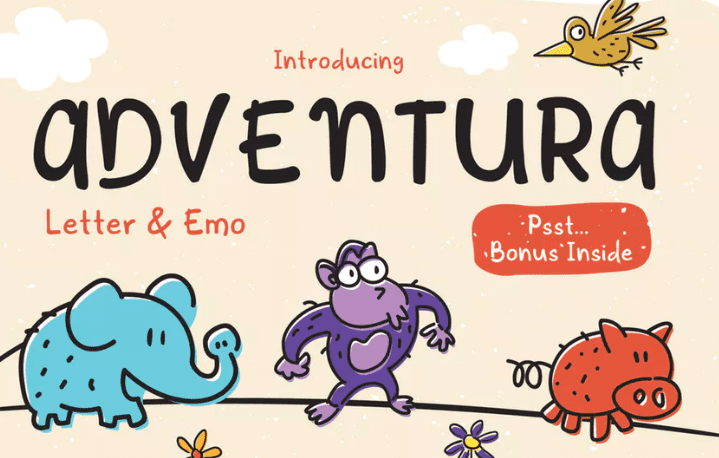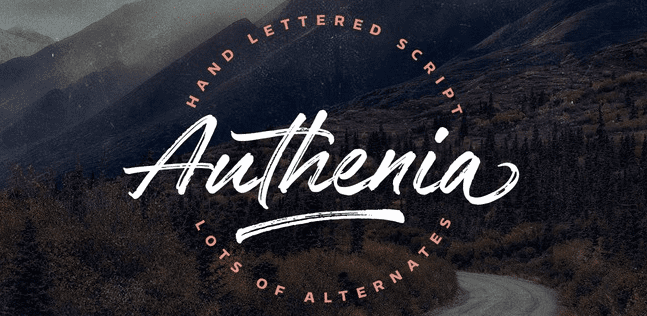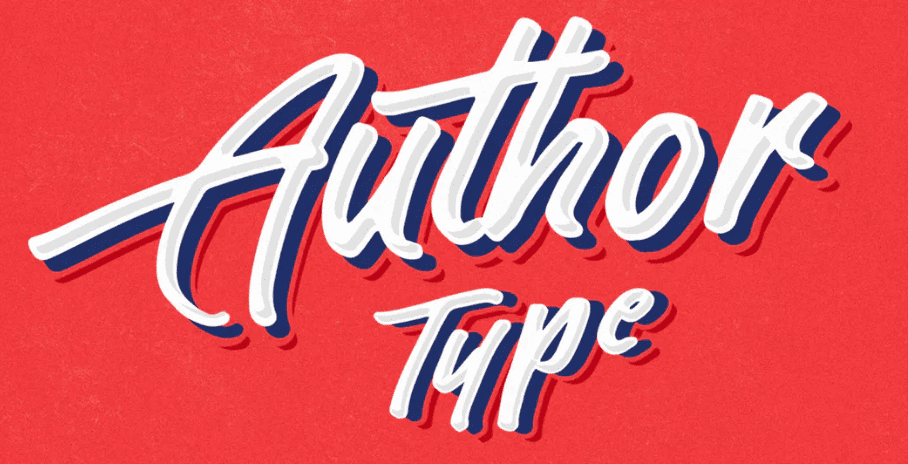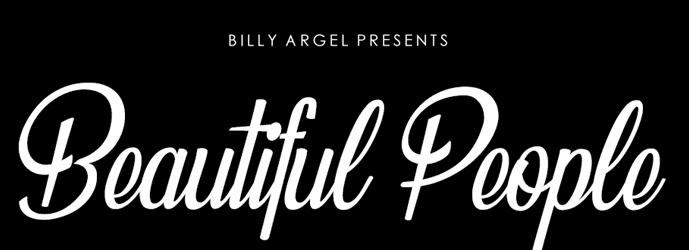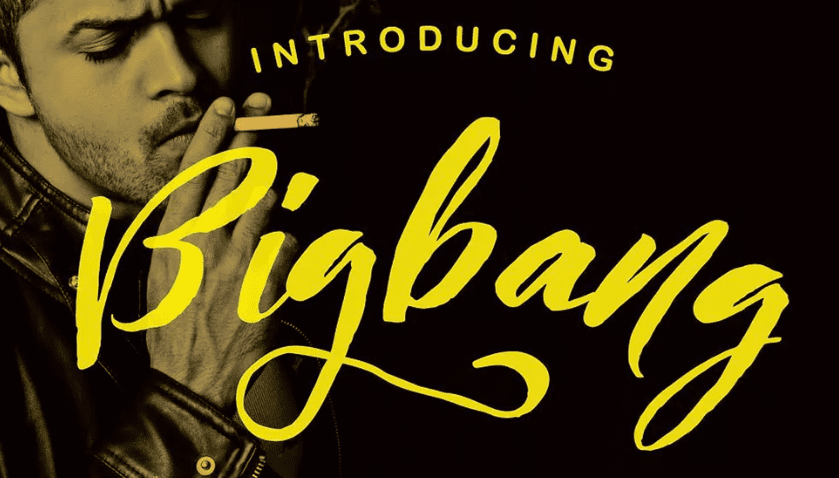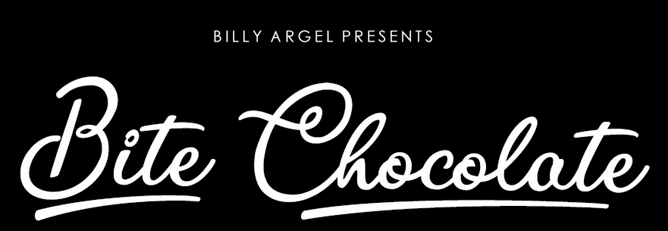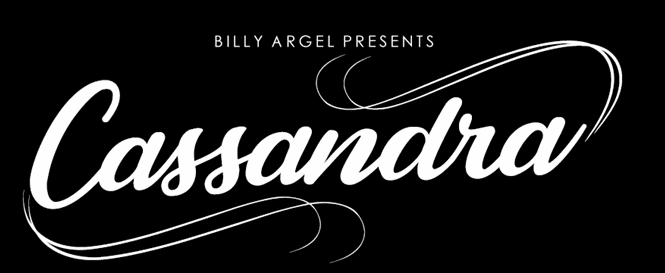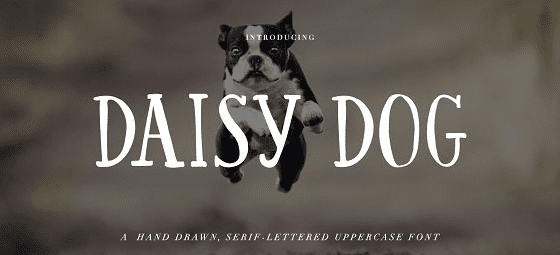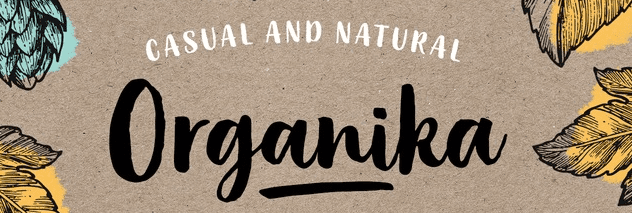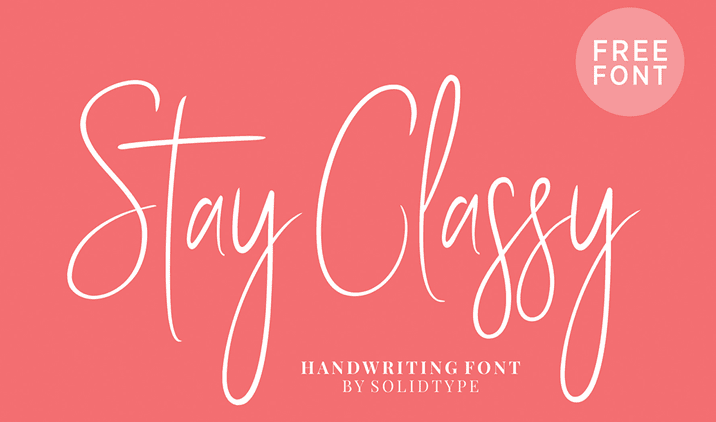
Given the prominence of tech, handwriting is arguably falling by the wayside. However, there’s still an appreciable charm to be had, and carefully-chosen lettering fonts can invoke a more ‘writerly’ feel, perfect for many different niches. The good news is that there are thousands of options to choose from online.
With this in mind, this post will look at 15 of the very best lettering fonts, and break down what makes them unique. We’ll also clearly note whether each font is free or premium.
15 Best Lettering Fonts for Achieving a Custom Creative Feel
Lettering fonts are all about a classic, elegant style. However, choosing the wrong one will just look messy. As such, we’ve looked at each example’s rating and reviews to narrow this selection down to 15. What’s more, this list isn’t in any particular order, so feel free to dive into any lettering font that takes your fancy.
1. Gilded Hand
Our first font in this list was literally created by hand, which is evident when you view it. It’s a typeface that wouldn’t look out of place on an old parchment, and despite the ornate styling, its cursive nature is easy to read – not bad for $4.
However, we’d recommend using this solely for titles and headings, as Gilded Hand can be a bit hard to read at smaller sizes. This is to be expected though, as smaller-sized cursive scripts are often tougher to read.
2. Ball Pen
Next up, Ball Pen is a handwritten ‘hipster’-style font that manages to look both classic and modern at the same time. We’re particularly big fans of the way it looks in white, which could give your designs a carefree style.
We think this would look right at home on a vintage logo, although authors may also appreciate the way it invokes a quickly-jotted signature. As with Gilded Hand, it’s recommended to use this for applications such as super-sized titles or potentially callout text.
3. Daisy Dog
Daisy Dog has a vintage look, and this all-caps font is effortlessly stylish. It’s also highly readable, due to its design, which makes it an excellent option for header images, titles, and logos.
Just like Ball Pen, this font also looks very classy in white, which means sites with darker backgrounds should check this one out. Because Daisy Dog is all-caps, it’s not going to be suitable for general body text, although you could potentially find a place for it for callout or otherwise prominent text.
4. Author Type
Author Type is the kind of font you’d expect to see in an old comic book or emblazoned on vintage streetwear. It oozes an old-school 50s charm, and due to its drop shadow, will give a site a slight sense of depth.
As for using the font, Author Type looks particularly at home within colorful designs. However, it’s a particularly great option for logos too, especially when using bold or monochrome palettes.
5. Stay Classy
Arriving with much more refinement than Ron Burgundy in Anchorman, Stay Classy looks like a calligrapher’s dream. The letters are tall and narrow, giving the text a touch of elegance, and its semi-cursive nature offers ‘movement’ and leading lines as you read.
We’d recommend you try out this typeface within logos, and wherever you need to invoke style. We’d argue that social events websites would suit Stay Classy, although mommy bloggers will be pleased with how this looks in pastel colors on a white background.
6. The Delight
While the other fonts had a clear focus, The Delight’s style is hard to pin down. It references vintage posters or the kind of lettering fonts you see in print ads gone by.
To put it another way, The Delight is all about retro charm, and it’s ideal for a title you want to tower over an entire design, such as the heading for a wedding invitation. Food websites may also suit this font, as the ‘flecks’ and ornate elements have a slight feeling of ‘spilled cream’ as it were.
7. Adventura
Adventura is the result of combining hand-lettering with a childish spirit. Unlike a lot of other fonts on this list, it’s sans-serif and non-cursive, which offers a ‘blocky’ look, albeit with some level of movement.
It’s the perfect pairing for a children’s book cover, or if you need to add text above an illustration. Even though it’s whimsical, it’s still very readable, and may even suit a more informal site in an otherwise formal niche. Overall, it can help you create some very fun designs.
8. Bigbang
If you’re looking for a hand-lettering font that screams ‘rebel without a cause’, Bigbang is for you. Its grungy style makes it look like it was written using brushstrokes, which provides a distinctly personal touch.
However, the overall shape suggests it’s the kind of font that dominates designs, so we recommend you stick to using it for logos or impactful headers. ‘Hipster’ websites will also have yet another font to add to the wishlist.
9. Authenia
An example of another semi-cursive font, Authenia is a simple option based on brushstrokes. It’s almost ‘touchable’ and has a lovely texture that offers both depth and movement.
It’s the kind of typeface tailor-made for vintage t-shirts or outdoors activities, as it’s laid-back and italicized. We’d also suggest trying it as a primary logo font, especially given the alternates included.
10. Organika
As the name implies, Organika is all about natural writing styles. It’s a casual font that’s also highly readable, despite being cursive and irregularly-shaped. As with other choices on this list, it’s going to be better used at larger sizes because of this.
If you’re looking for a typeface that wouldn’t look out of place on a jar of organic jam, this could be the perfect fit. Don’t let its ‘hippie’ style fool you, though – Organika has a lot of thought put into its design, and it’s a match made in heaven for cooking-related sites, and personal blogs.
11. Fineday
If you’re harking after a font to invoke thoughts of classic Cadillacs, jukeboxes, and malt shops, Fineday is likely near the top of your list. You may also notice its thick brushstrokes and devil-may-care swashes are similar to the logo of a distinctly red variety of cola. This font is also more flexible than most, as you can choose between cursive and non-cursive lettering.
It may seem niche, but if you’re working on a parody design, this is going to be a first-ballot font choice. However, it can also stand on its own – on restaurant websites, or vintage clothing logos, for example.
12. Beautiful People
For our final few fonts, we’re going to look at the Billy Argel foundry, as there are some great examples of lettering fonts within. For example, Beautiful People has an ‘end credits’ feel for a black and white movie, which immediately gives it a touch of class. It features beautiful cursive loops, and very tight letter spacing. This means at anything but the most prominent of sizes, you could find readability a concern.
In our opinion, Beautiful People is ideal for beauty websites or wedding invitations. You could also employ this again within parody designs, or those situations where you need the visitor to relate to the golden age of Hollywood.
13. Tomatoes
We’ve looked at ‘signature’-style font earlier in the list, and here’s another example. Tomatoes has the feel of an autograph, and although it has a ‘scrawly’ quality, it’s still readable. Because it’s also thin, you’ll likely want to make this font large.
Much like other letting fonts based on handwriting, Tomatoes is ideal for anywhere you need to fake text created by the human hand. We’re thinking author websites, prominent sign-offs, and similar.
14. Bite Chocolate
Our penultimate font looks incredibly similar to the style of lettering found on French chocolate wrappers – in other words, it’s incredibly classy. Bite Chocolate has plenty of movement and alternates, but we’d argue its main strength is its lack of flexibility.
To put it another way, you’d probably consider this for food-related designs, or otherwise whimsical looks. We couldn’t see how this would suit other designs where you’ve used cursive scripts, but of course, the specific application is key.
15. Cassandra
Last but not least, Cassandra features the kind of design that wouldn’t look out of place on a perfume ad or a fashion magazine. There are some great alternates and other extras, meaning it offers flexibility while still doing one thing really well.
All in all, it’s vintage and down-to-earth in one package. We think it’s a great fit for logo designs, although you could rein in its flourishes and use it for titles and headings too.
Conclusion
Fonts can come in all shapes, sizes, and applications. While lettering fonts won’t ever be mistaken for more professional choices, they’re going to be just the ticket for those looking for a writerly or whimsical site design. They hold an especially personal touch, but choosing the wrong one can give off a poor impression.
Our favorite lettering fonts are effortlessly elegant. For example, Gilded Hand is as fancy as its name sounds. In contrast, Ball Pen or Stay Classy gives off a signature-style air to suit personal blogs. You can even find examples such as Adventura, which could be perfect for websites focused on younger visitors, or otherwise informal businesses.